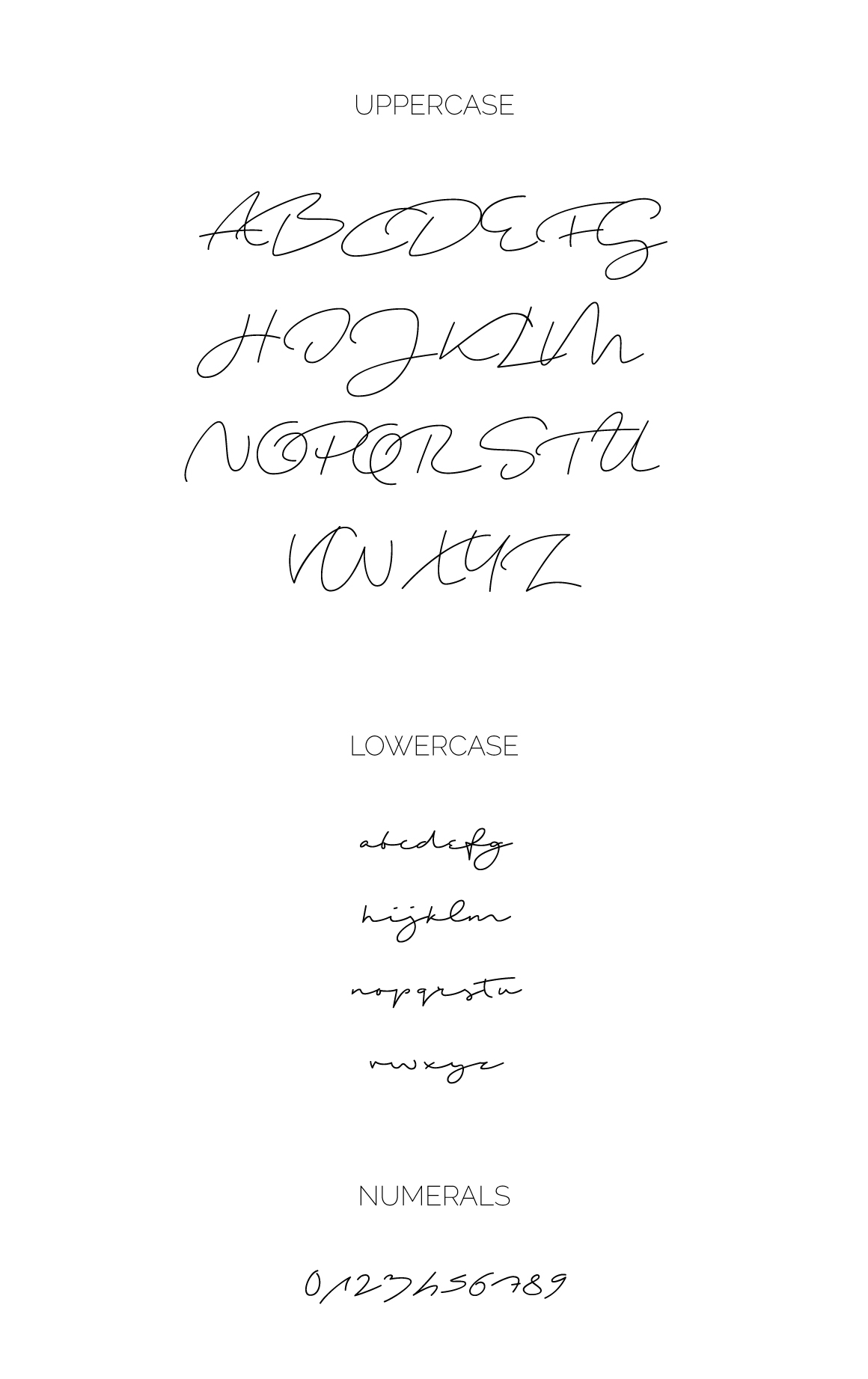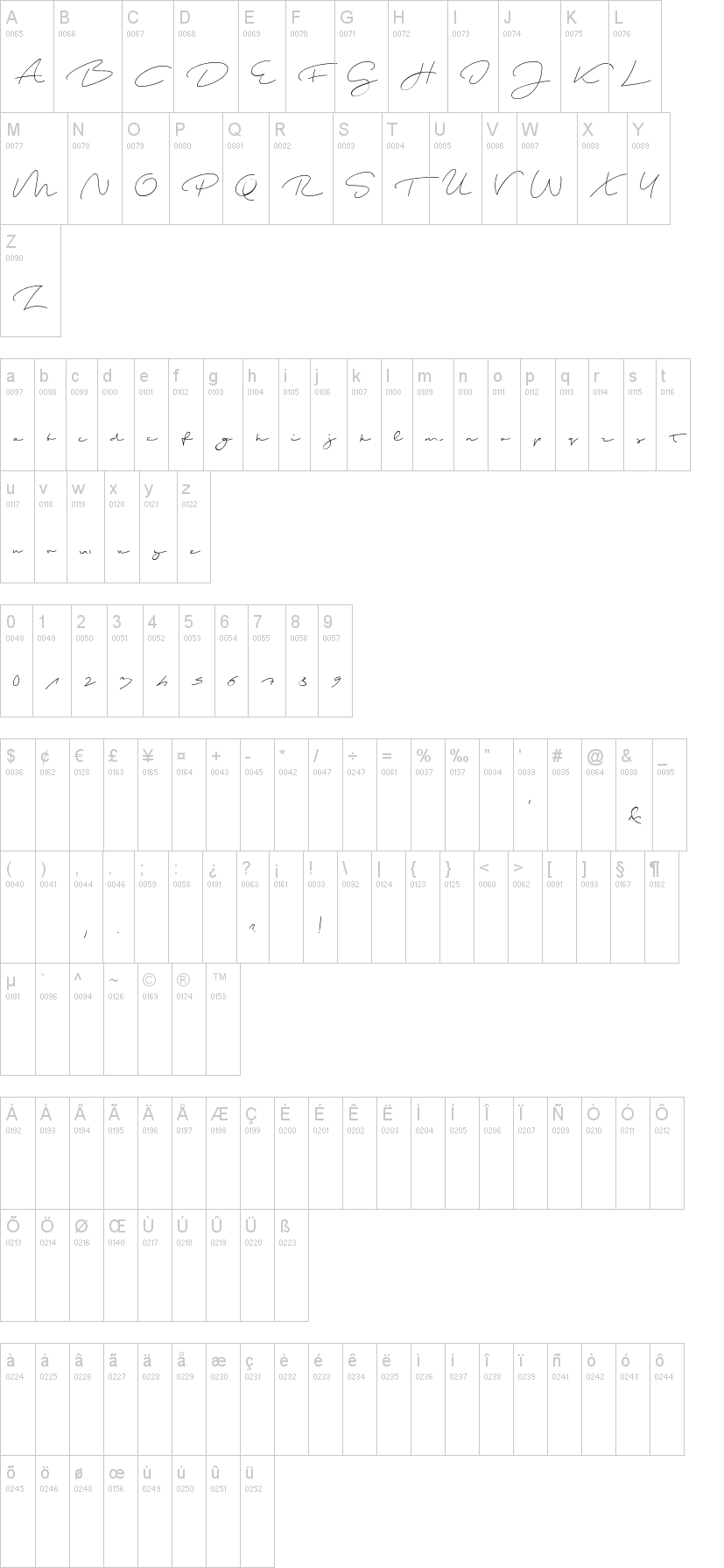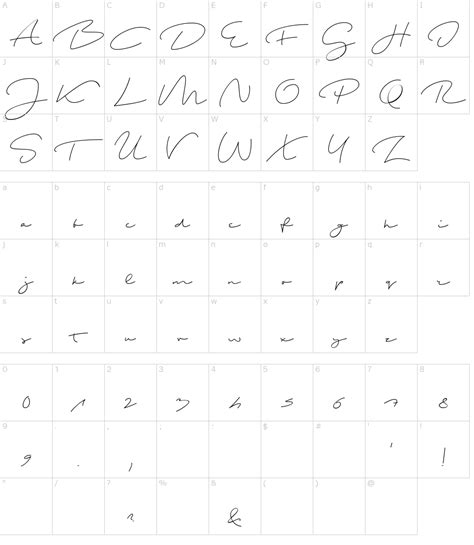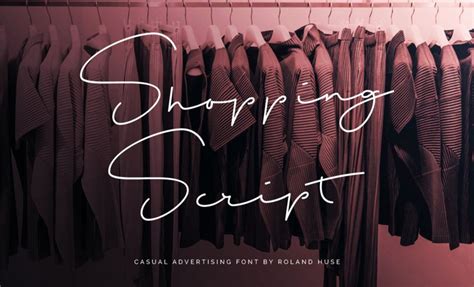
Font Shopping Script
Font Shopping Script - Shopping script is a cursive signature style handwritten script. Web note of the author. Web shopping script font was created to look as close to a natural handwritten script as possible by including over 30 ligatures,. This is the demo version and it's free for.
This is the demo version and it's free for. Web shopping script font was created to look as close to a natural handwritten script as possible by including over 30 ligatures,. Shopping script is a cursive signature style handwritten script. Web note of the author.
Web note of the author. This is the demo version and it's free for. Shopping script is a cursive signature style handwritten script. Web shopping script font was created to look as close to a natural handwritten script as possible by including over 30 ligatures,.
Shopping Script Font Free Fonts
Web note of the author. This is the demo version and it's free for. Web shopping script font was created to look as close to a natural handwritten script as possible by including over 30 ligatures,. Shopping script is a cursive signature style handwritten script.
Shopping Script free font
This is the demo version and it's free for. Shopping script is a cursive signature style handwritten script. Web note of the author. Web shopping script font was created to look as close to a natural handwritten script as possible by including over 30 ligatures,.
Shopping Handwritten Font
This is the demo version and it's free for. Shopping script is a cursive signature style handwritten script. Web shopping script font was created to look as close to a natural handwritten script as possible by including over 30 ligatures,. Web note of the author.
Shopping Script free font
Shopping script is a cursive signature style handwritten script. Web shopping script font was created to look as close to a natural handwritten script as possible by including over 30 ligatures,. This is the demo version and it's free for. Web note of the author.
SHOPPING SCRIPT FREE HANDWRITTEN FONT on Behance
This is the demo version and it's free for. Shopping script is a cursive signature style handwritten script. Web note of the author. Web shopping script font was created to look as close to a natural handwritten script as possible by including over 30 ligatures,.
Shopping Script Font
This is the demo version and it's free for. Web note of the author. Web shopping script font was created to look as close to a natural handwritten script as possible by including over 30 ligatures,. Shopping script is a cursive signature style handwritten script.
SHOPPING SCRIPT FREE HANDWRITTEN FONT on Behance
Web shopping script font was created to look as close to a natural handwritten script as possible by including over 30 ligatures,. Web note of the author. Shopping script is a cursive signature style handwritten script. This is the demo version and it's free for.
Shopping Script Font Free Fonts
Web shopping script font was created to look as close to a natural handwritten script as possible by including over 30 ligatures,. Shopping script is a cursive signature style handwritten script. Web note of the author. This is the demo version and it's free for.
Web shopping script font was created to look as close to a natural handwritten script as possible by including over 30 ligatures,. This is the demo version and it's free for. Web note of the author. Shopping script is a cursive signature style handwritten script.
Web shopping script font was created to look as close to a natural handwritten script as possible by including over 30 ligatures,. Shopping script is a cursive signature style handwritten script. Web note of the author.